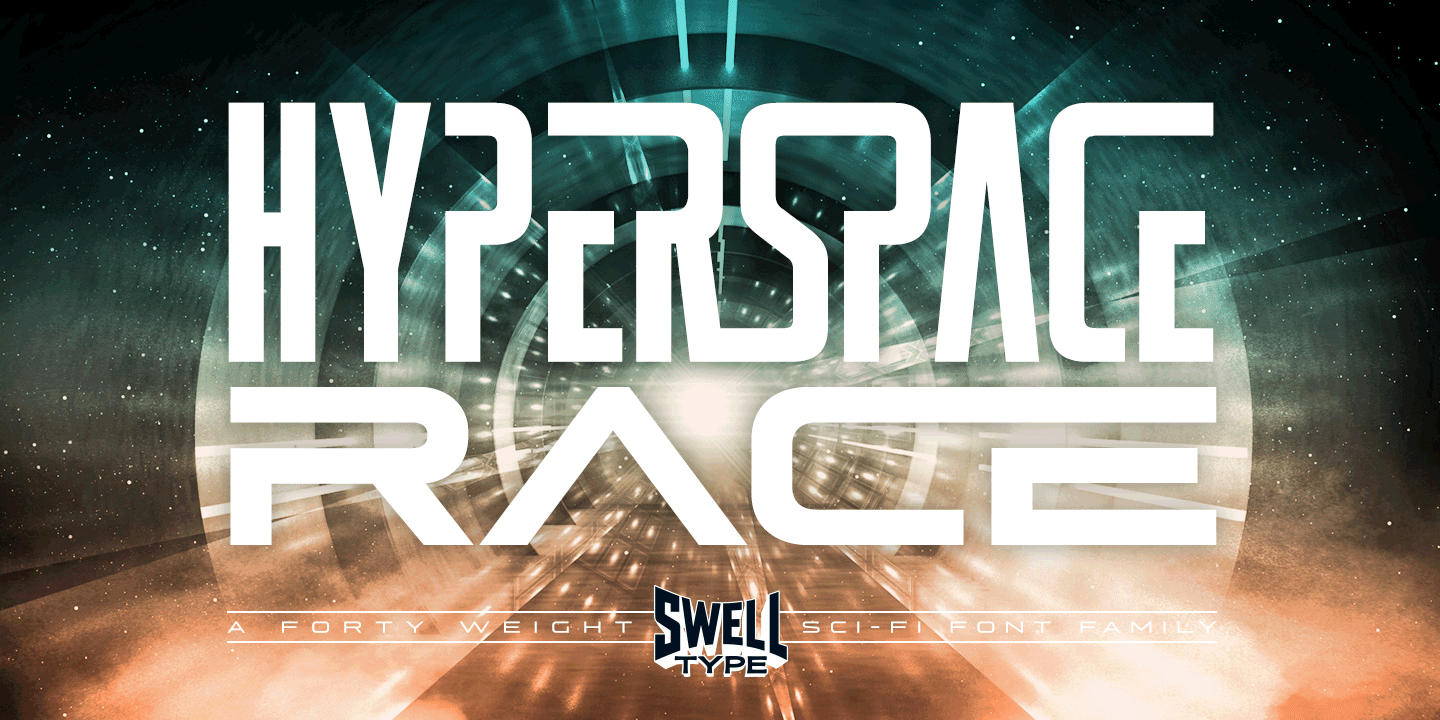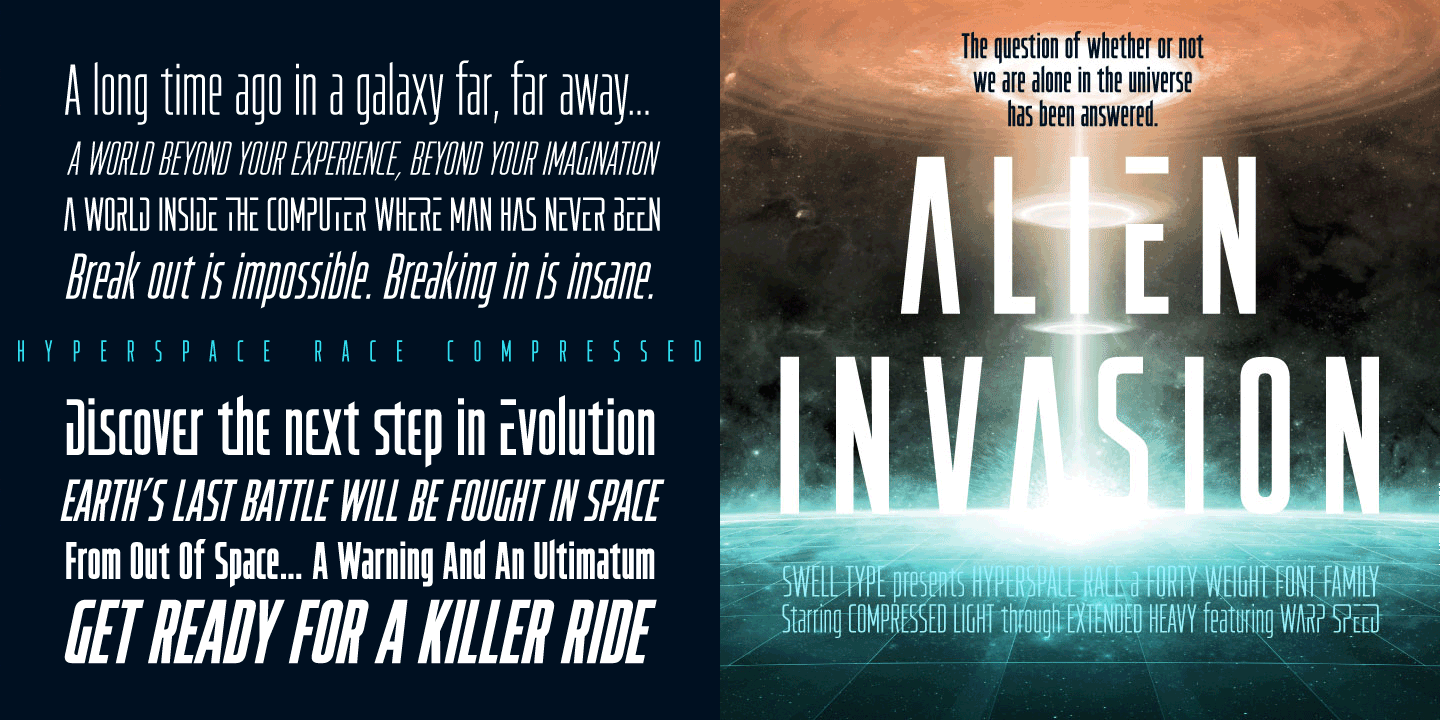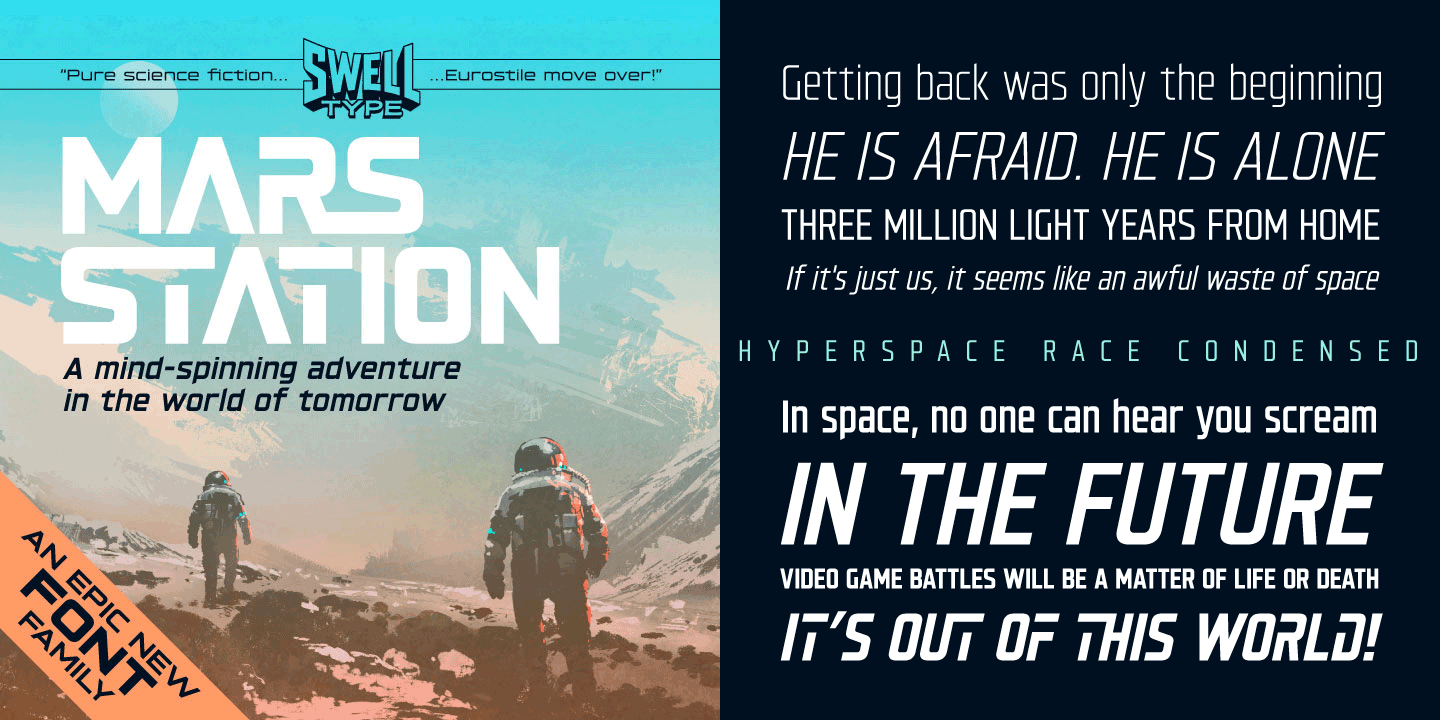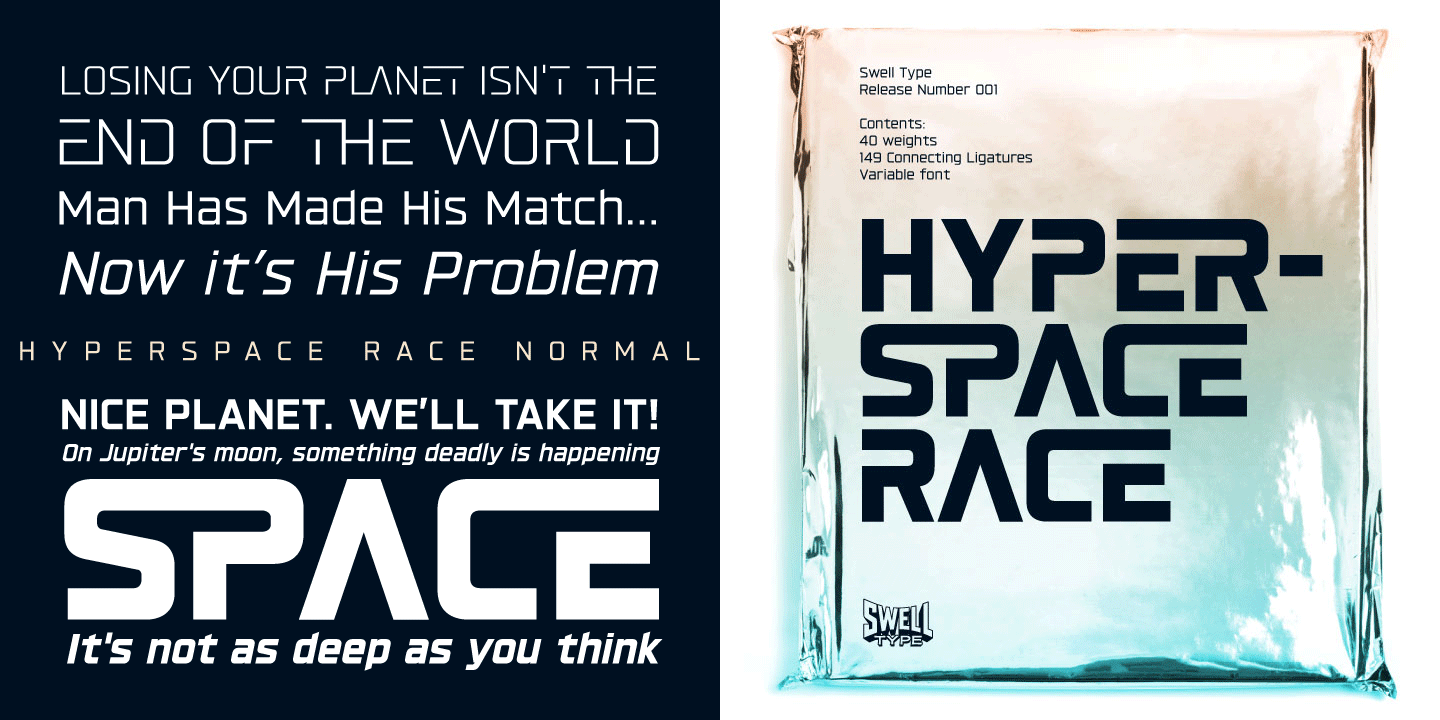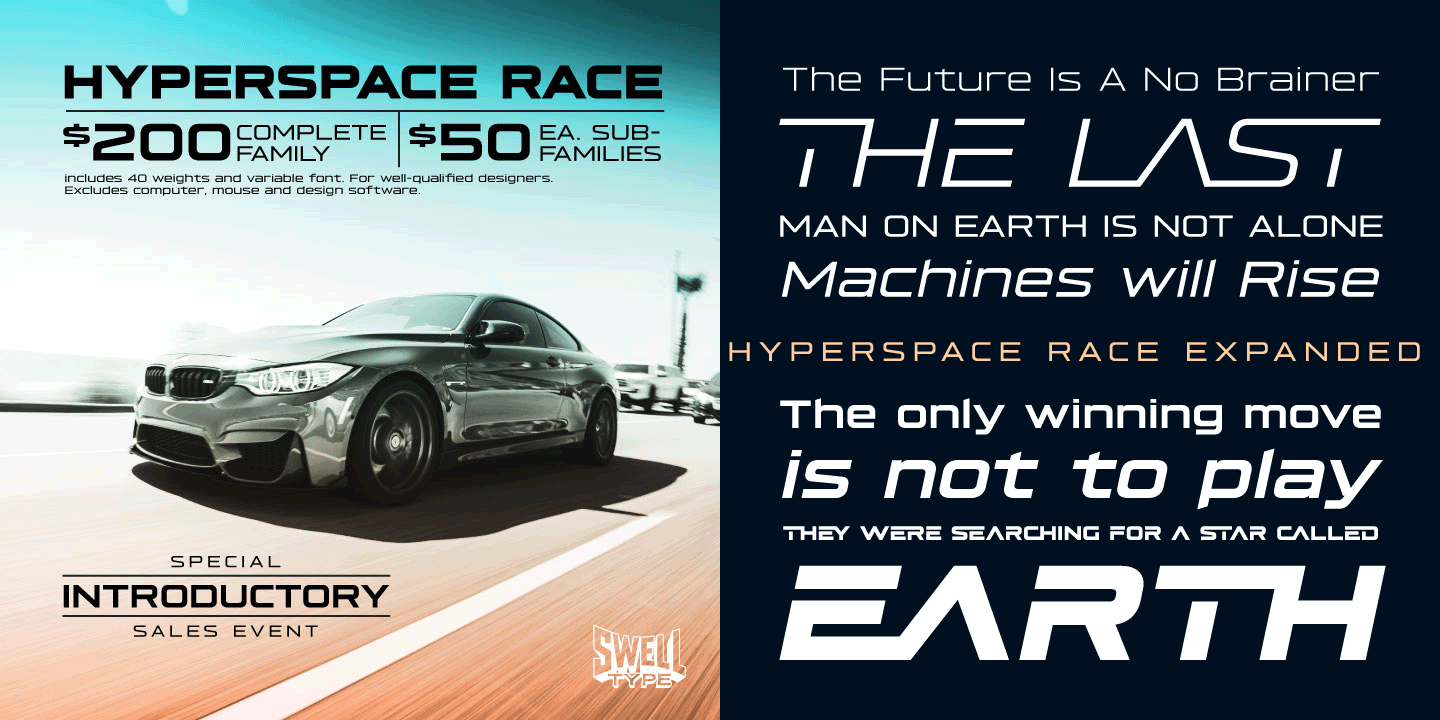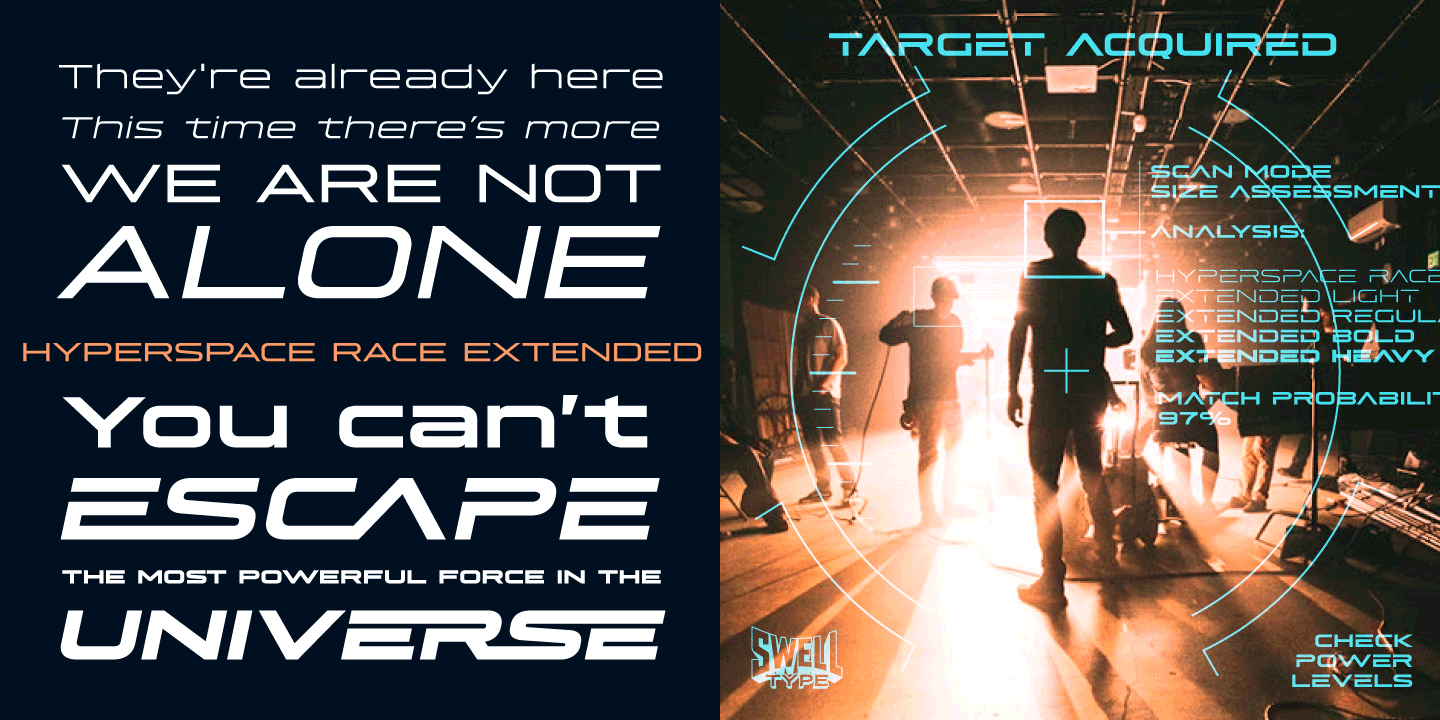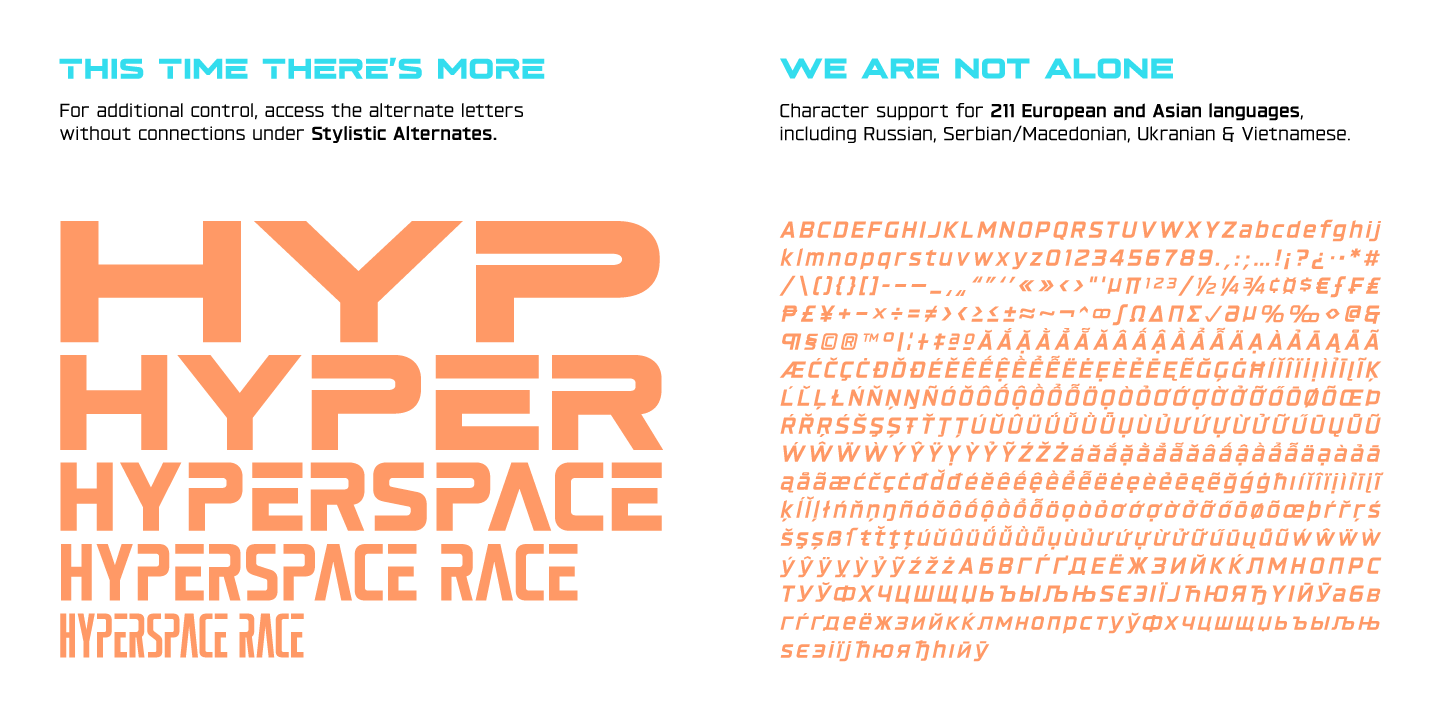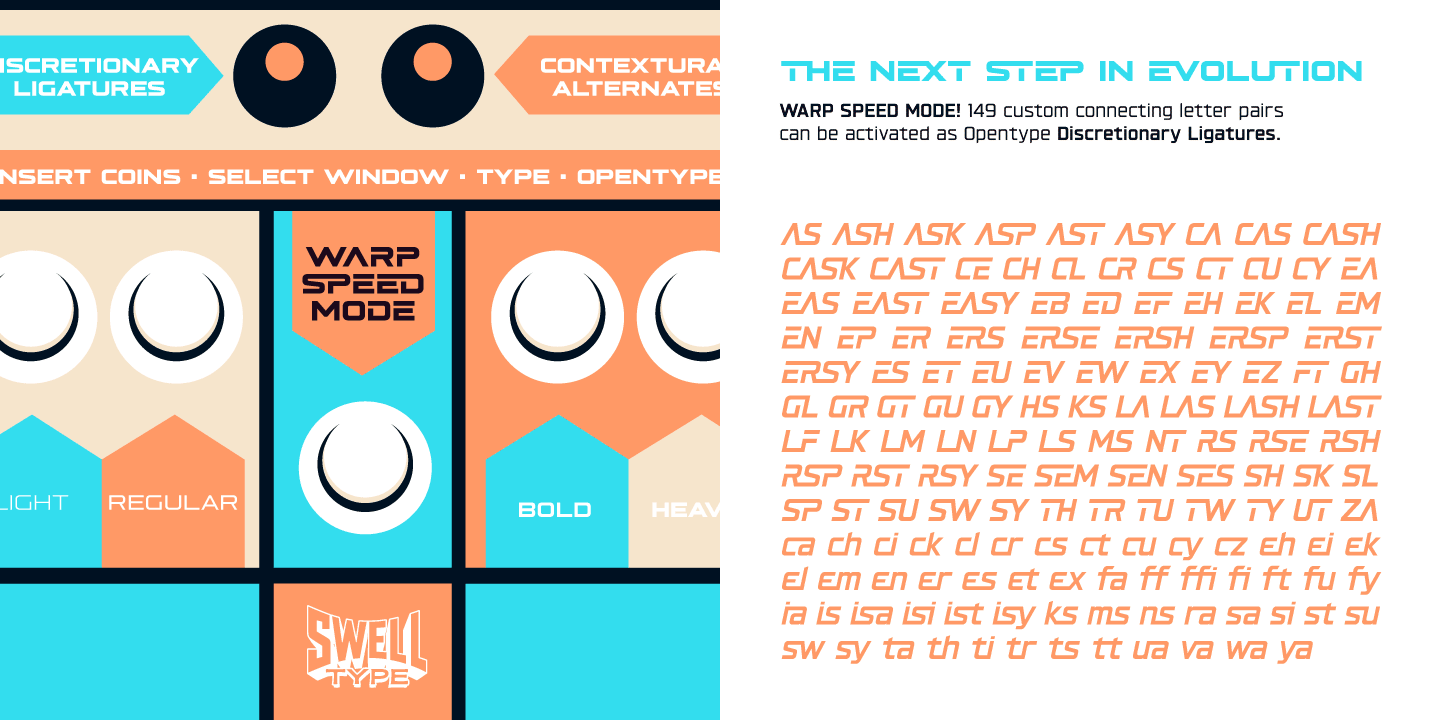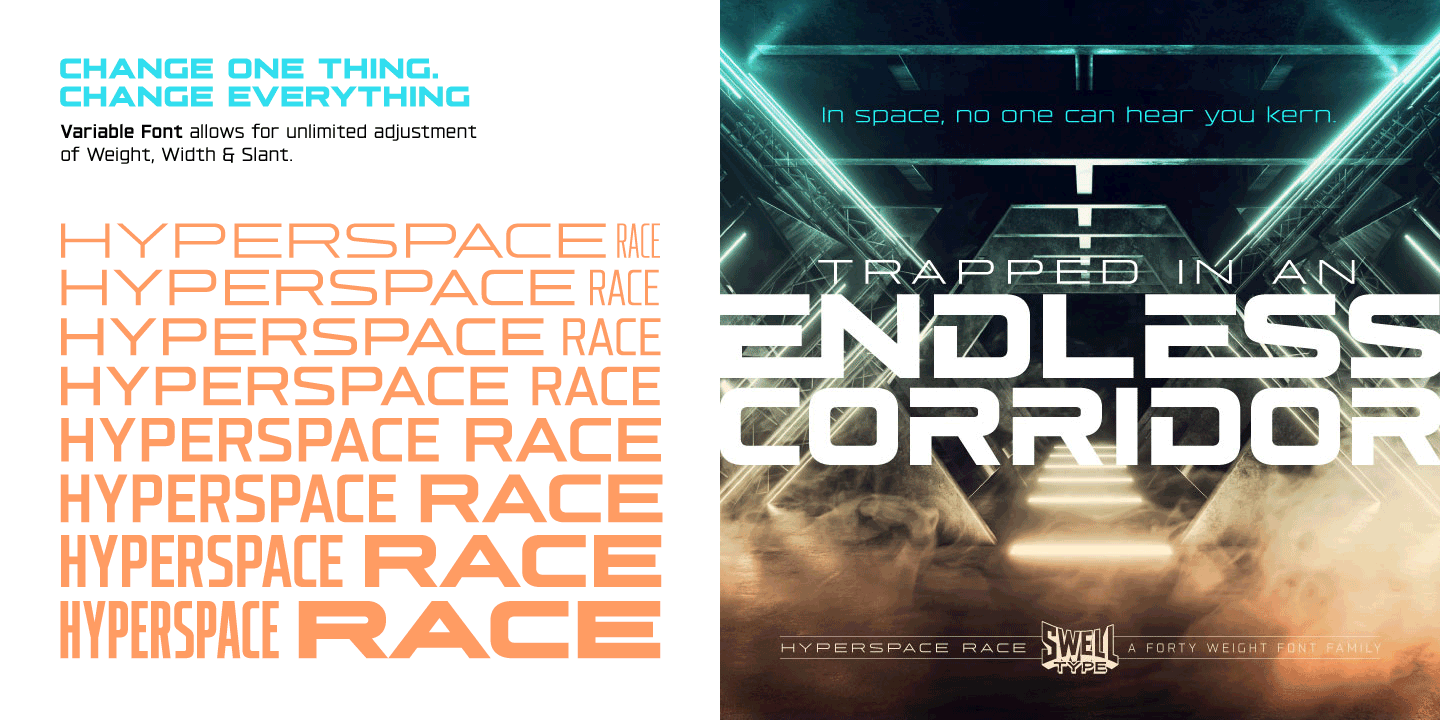
Hyperspace Race
Font Family by Swell Type
It had to happen: we reached into the future and returned with the ultimate hyper-wide hyper-condensed hyper-thin hyper-bold font: HYPERSPACE RACE!
Hyperspace Race boldly goes where no sci-fi font has gone before, with WARP SPEED mode (149 custom connecting letter pairs), alternate letters, a Variable Font for unlimited adjustment of Weight, Width & Slant, and Character support for 211 European and Asian languages, including Russian, Serbian/Macedonian, Ukranian & Vietnamese.